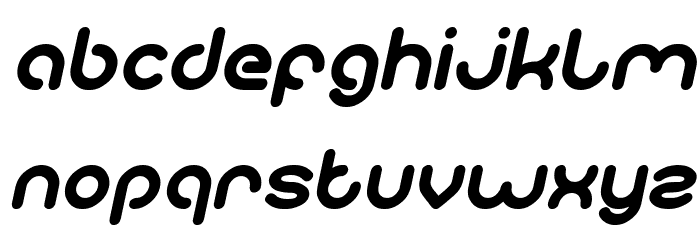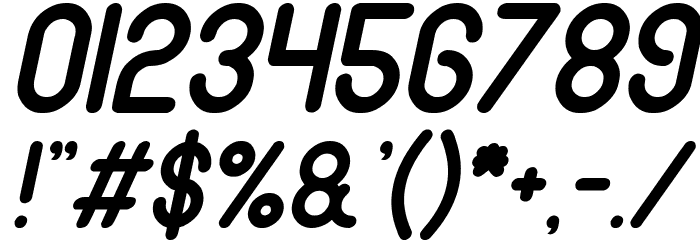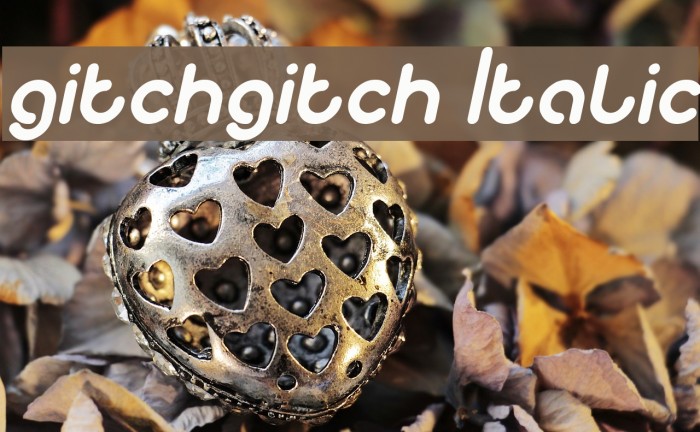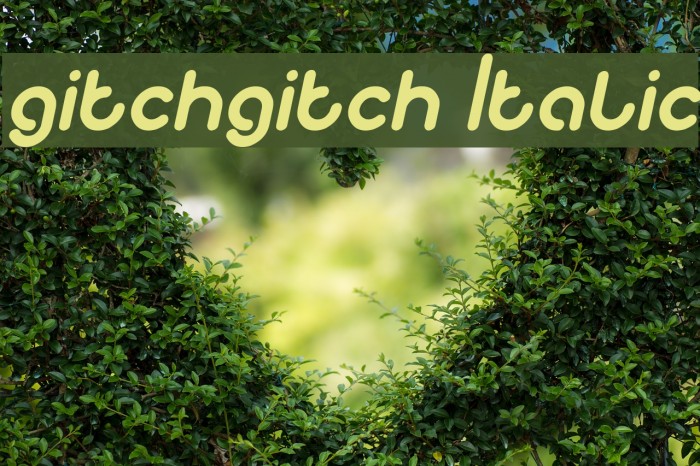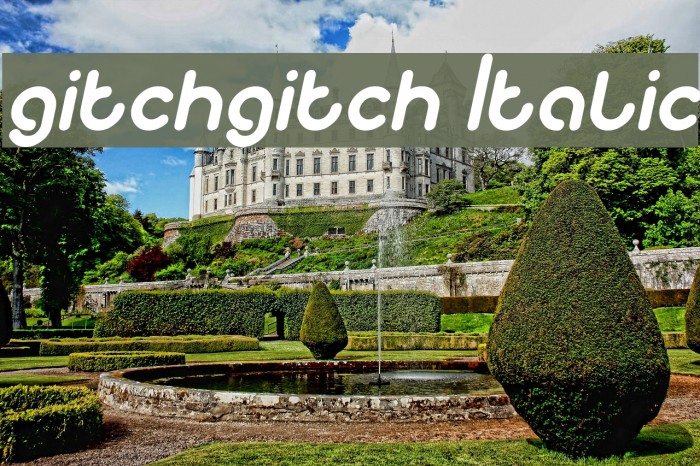
gitchgitch Italic Font
This font features a playful and rounded design with a consistent italic slant, giving it a dynamic and energetic appearance. The characters are bold and have a smooth, flowing quality, making them highly legible while maintaining a unique style. The uppercase and lowercase letters are well-balanced, with the lowercase letters maintaining a similar height to the uppercase, enhancing readability. The numerals are distinct and easy to differentiate, and the special characters are designed to match the overall aesthetic, ensuring a cohesive look across all glyphs. The font's rounded edges and uniform stroke width contribute to its friendly and approachable feel, making it suitable for a variety of creative applications.
A playful, rounded italic font with bold, smooth characters.
- Proposed Projects: Ideal for children's books, playful branding, casual invitations, and creative posters.
- Overall Style: Playful, Modern